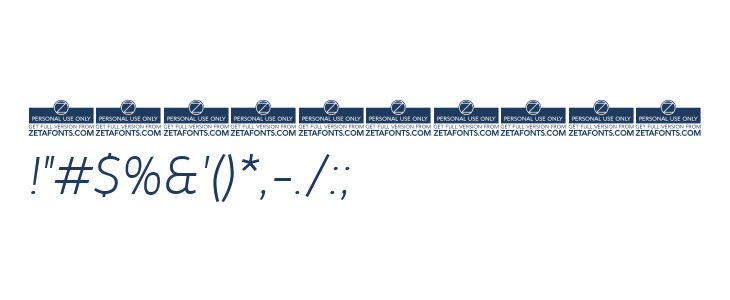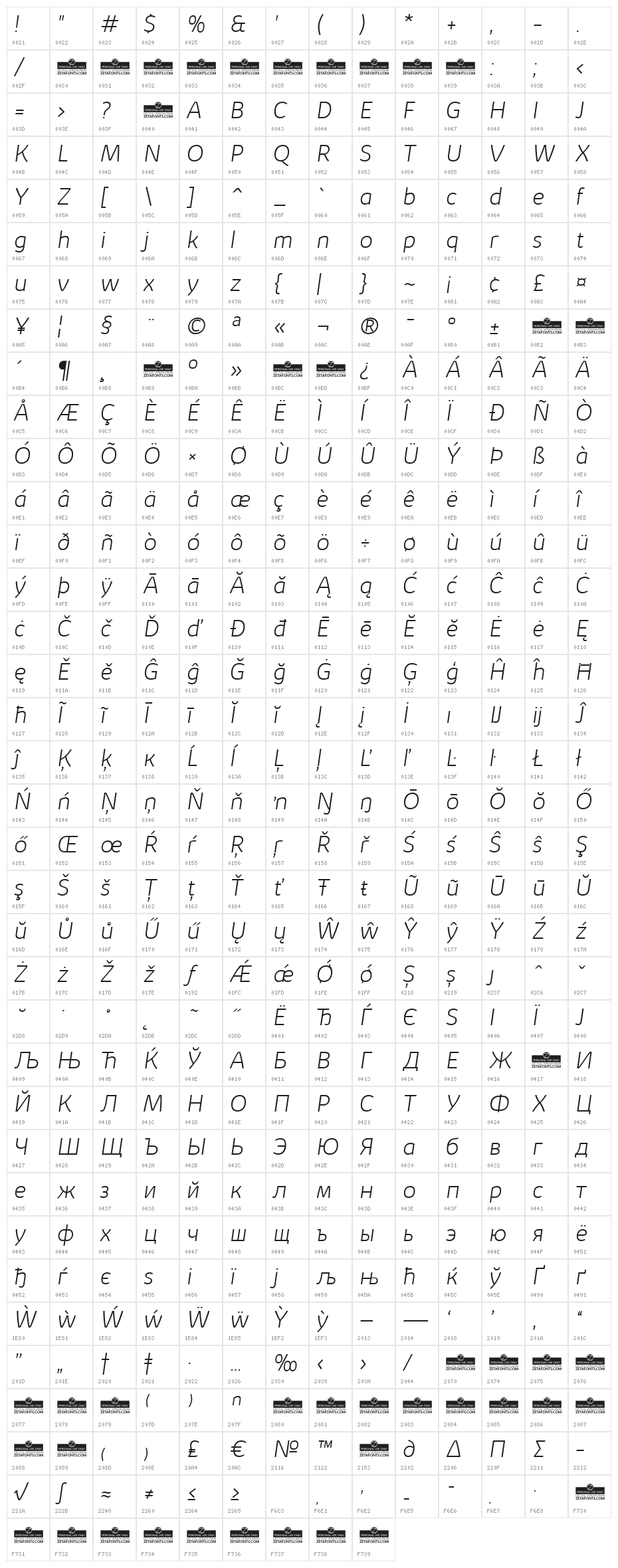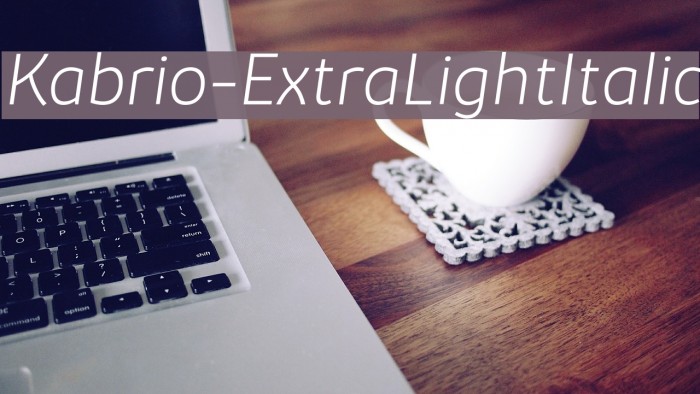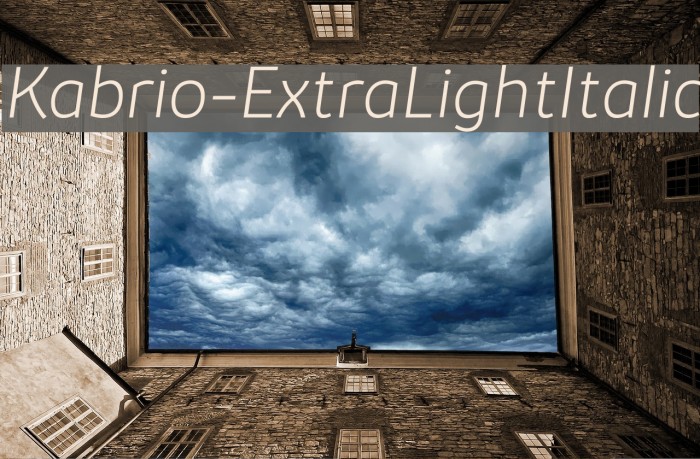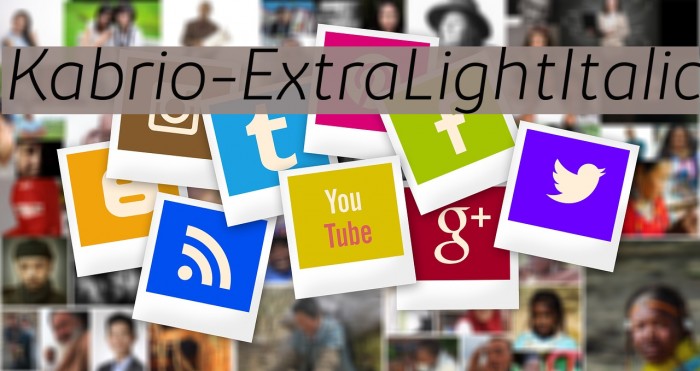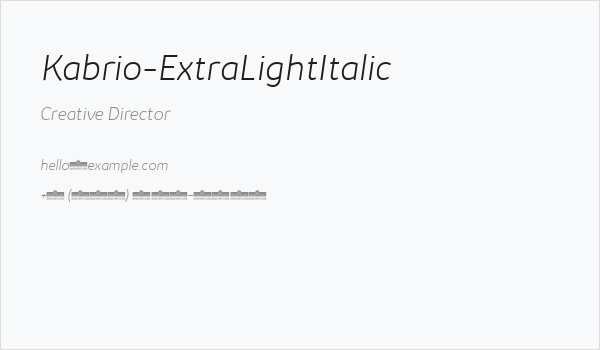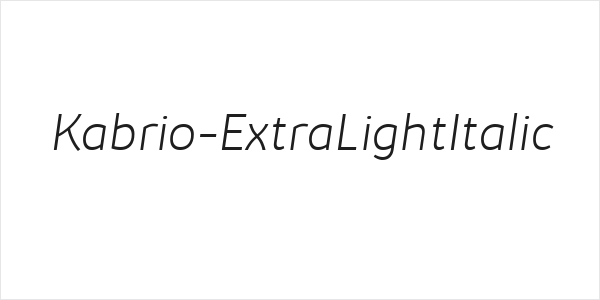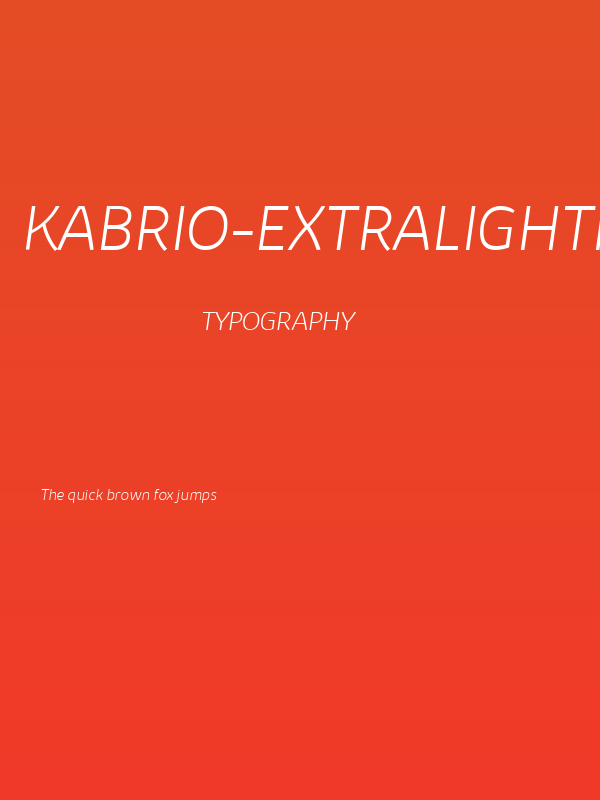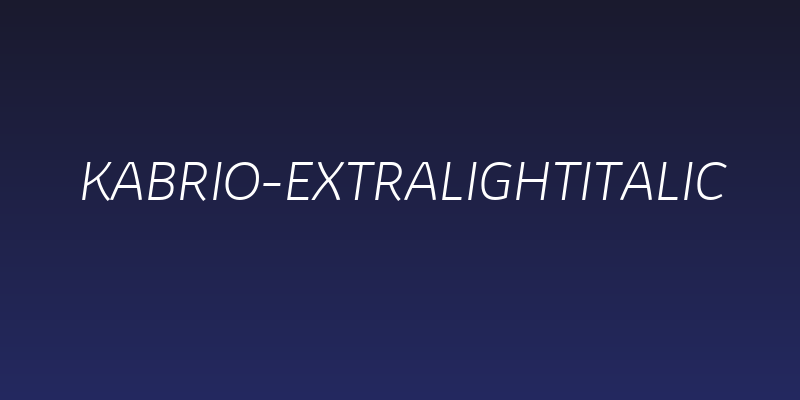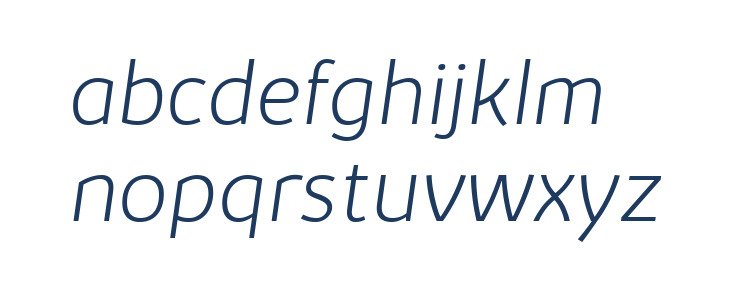
Kabrio-ExtraLightItalic Font
Kabrio-ExtraLightItalic Description
This typeface features a sleek and modern design with an elegant italic slant. The characters are crafted with a light stroke, offering a clean and airy appearance. The uppercase and lowercase letters maintain a consistent style, with smooth curves and sharp edges that enhance readability. The numerals and special characters are designed to complement the alphabet, maintaining the overall aesthetic. This font's minimalist approach makes it versatile for various design applications.
| Proposed Projects | Ideal for modern branding, editorial design, digital interfaces, and minimalist posters. |